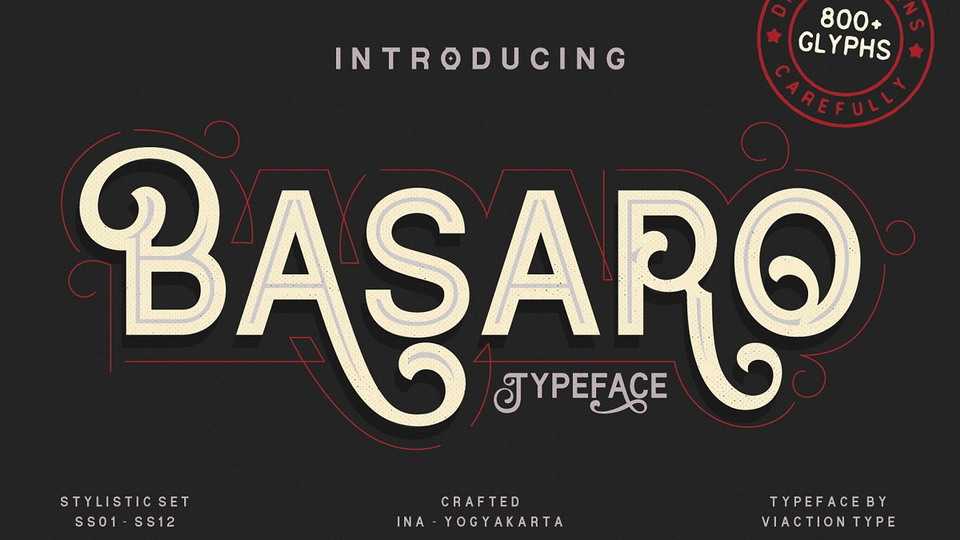
Download Basaro font, a retro all caps display sans serif with many letter combinations according to creation. Basaro font inspired by an elegant & classic style with various swash.